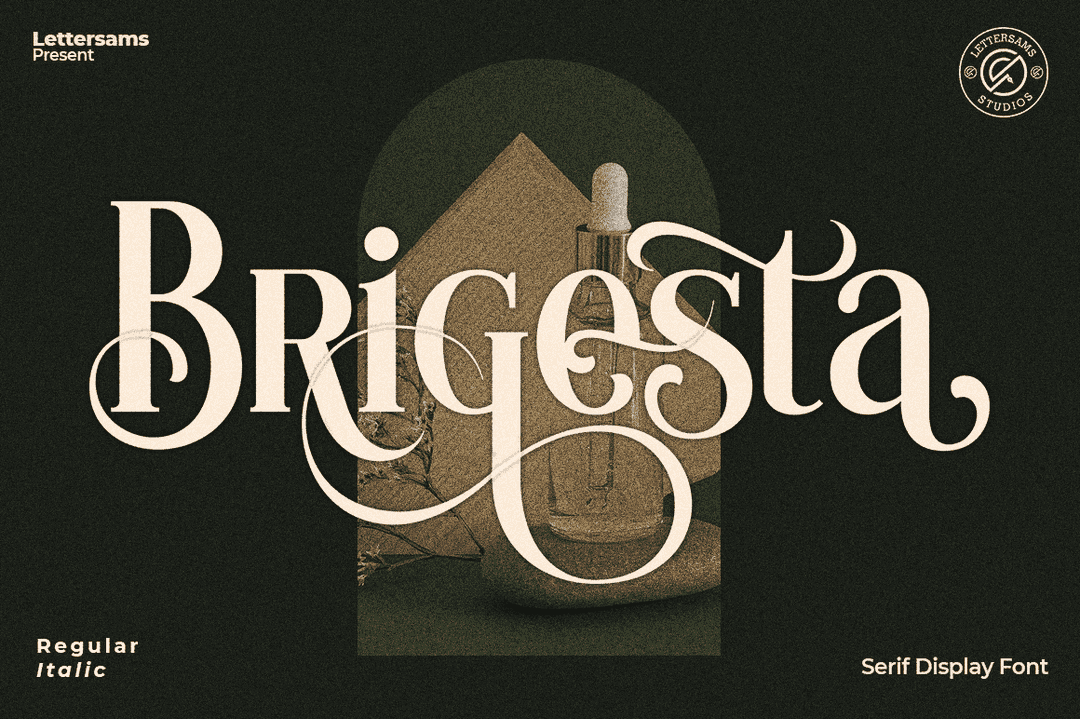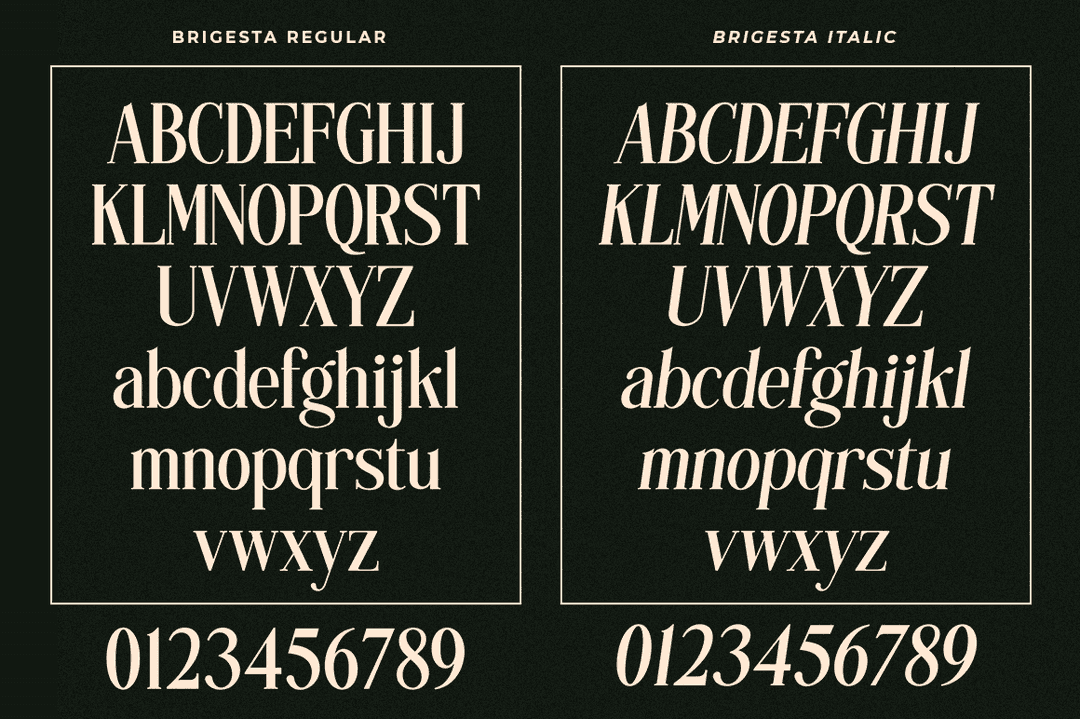
Discover Brigesta Font, part of the Serif collection—a versatile and unique font perfect for adding a personal touch to your projects. Download it for free and enjoy crafting designs with style, from invitations to social media posts. This font is available exclusively for personal use, giving you the freedom to create without limits. Unlock your creativity with Brigesta Font today!
Brigesta is an exquisite serif font designed to stand out. PUA encoded for ease of accessing all its glyphs, swashes, and characters! Be amazed by its incredible versatility to craft stunning designs!